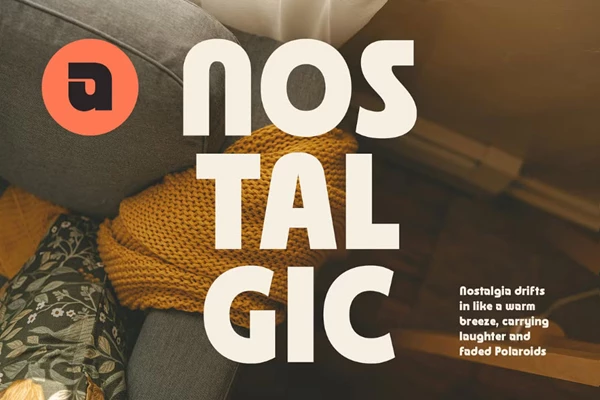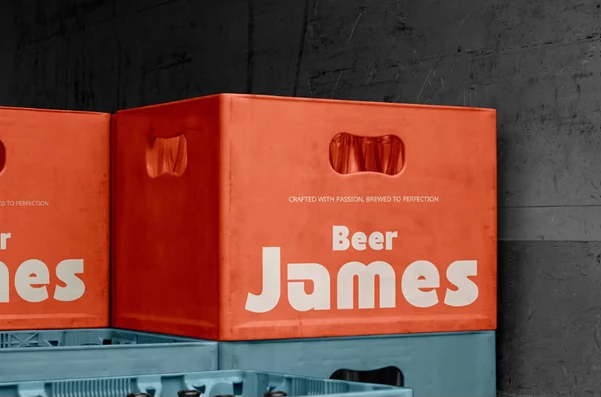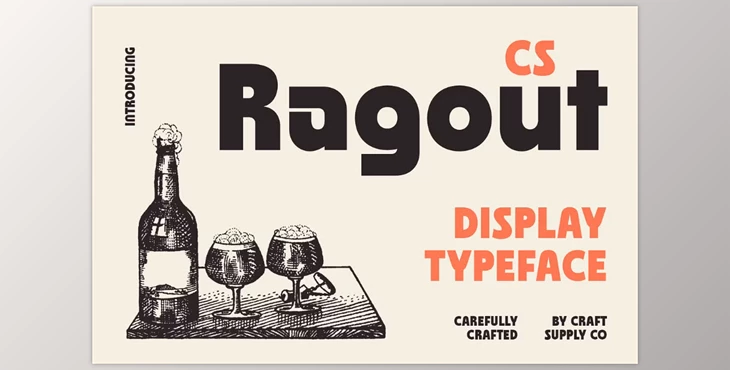
CS Ragout - Bold Font:
The letters of CS Ragout display font are fierce and strong like a beast, and so it gives a sense of tame power hen used on any design. The font dynamically plays with contrast between soft details and strong letterforms which makes every design have a bold impact yet a lively touch. Designers who want to create stylish eye-catching bold designs need to look no further, CS Ragout is the answer.
With energetic capturing designs, CS Ragout comes with sleek curves and accents that highlight movement and fun. More importantly, it equally balances modernism and artistic accomplishment. Therefore, it is a go-to font for any visual ranging from branding, posters, product packaging, or even social media that aim to capture eyeballs. And posters where every headline and text needs to make a statement, this font makes a limitless impact.